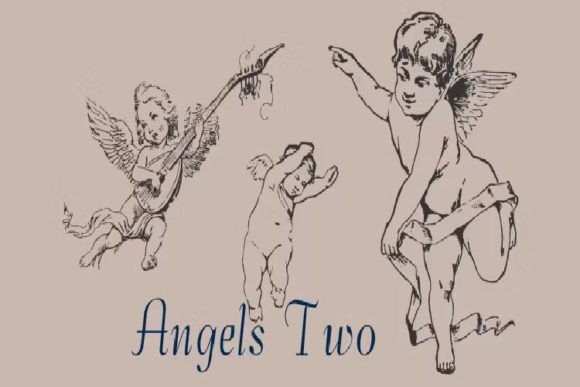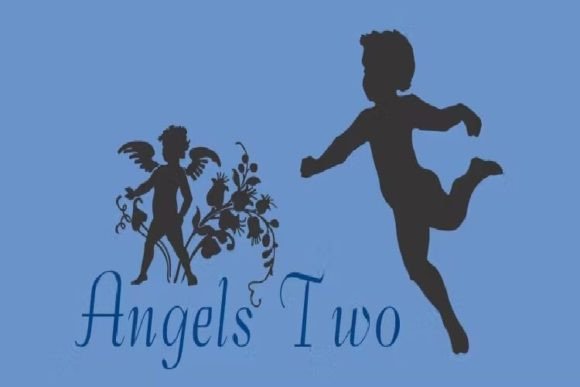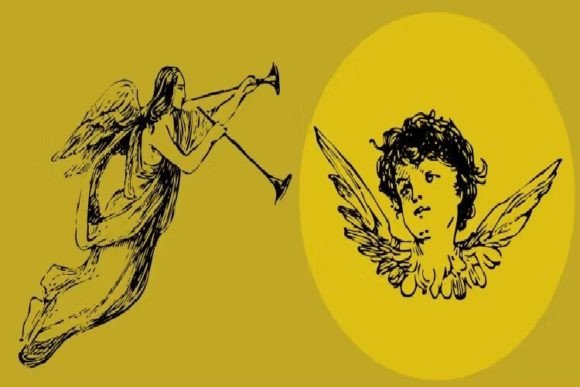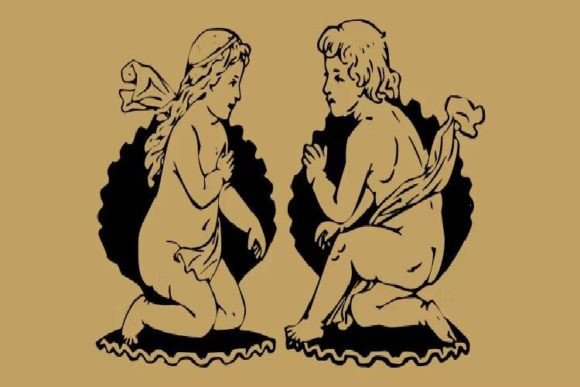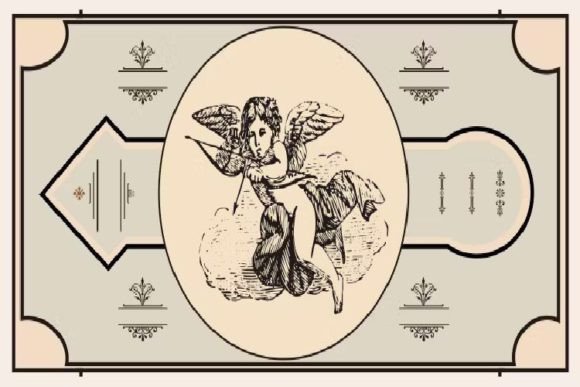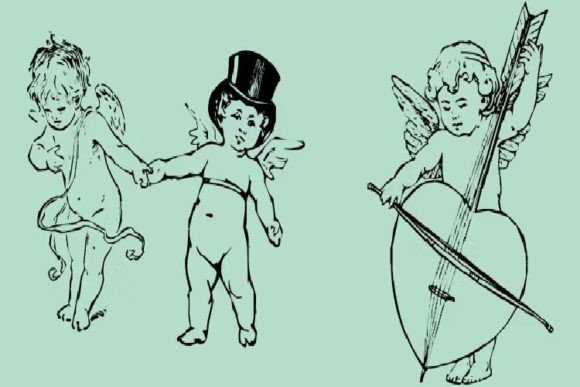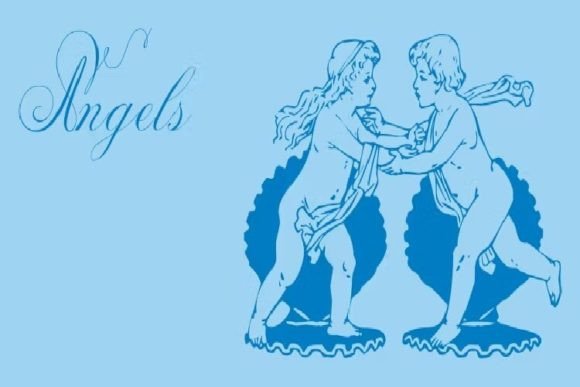
Discover the Heavenly Charm of Angels Font: Elevate Your Designs with Angelic Flair
Are you looking for a unique and captivating typeface to add a touch of heavenliness to your designs, invitations, and creative projects? Look no further than Angels Font, a charming dingbat typeface that features angelic symbols and winged motifs. This delightful font is perfect for designers and crafters seeking to infuse their work with a sense of elegance, sophistication, and whimsy.
What is Angels Font?
Angels Font is a dingbat typeface that showcases a collection of beautiful angelic symbols, winged motifs, and other heavenly elements. This font is designed to bring a touch of magic and wonder to your designs, making it ideal for a wide range of creative projects, from invitations and greeting cards to branding and advertising materials.
Key Features of Angels Font
- Unique and Exclusive Designs: Angels Font features a range of unique and exclusive designs that are sure to make your projects stand out from the crowd.
- High-Quality Vector Graphics: Angels Font is made up of high-quality vector graphics, ensuring that your designs look crisp and clear at any size.
How to Use Angels Font in Your Designs
- Invitations and Greeting Cards: Add a touch of elegance and sophistication to your invitations and greeting cards with Angels Font.
- Branding and Advertising: Use Angels Font to create unique and eye-catching branding and advertising materials that are sure to grab attention.
- Social Media Graphics: Add a touch of whimsy and charm to your social media graphics with Angels Font.
- Web Design: Use Angels Font to create beautiful and unique web designs that are sure to impress.
Benefits of Using Angels Font
- Adds a Touch of Elegance and Sophistication: Angels Font adds a touch of elegance and sophistication to any design.
- Unique and Eye-Catching: This font is sure to make your designs stand out from the crowd.
- High-Quality Graphics: This font features high-quality vector graphics, ensuring that your designs look crisp and clear at any size.
Tips and Tricks for Getting the Most Out of Angels Font
Here are a few tips and tricks for getting the most out of Angels Font:
- Experiment with Different Colors and Textures: Don’t be afraid to experiment with different colors and textures to add depth and interest to your designs.
- Use Angels Font in Combination with Other Fonts: Try using Angels Font in combination with other fonts to create unique and eye-catching designs.